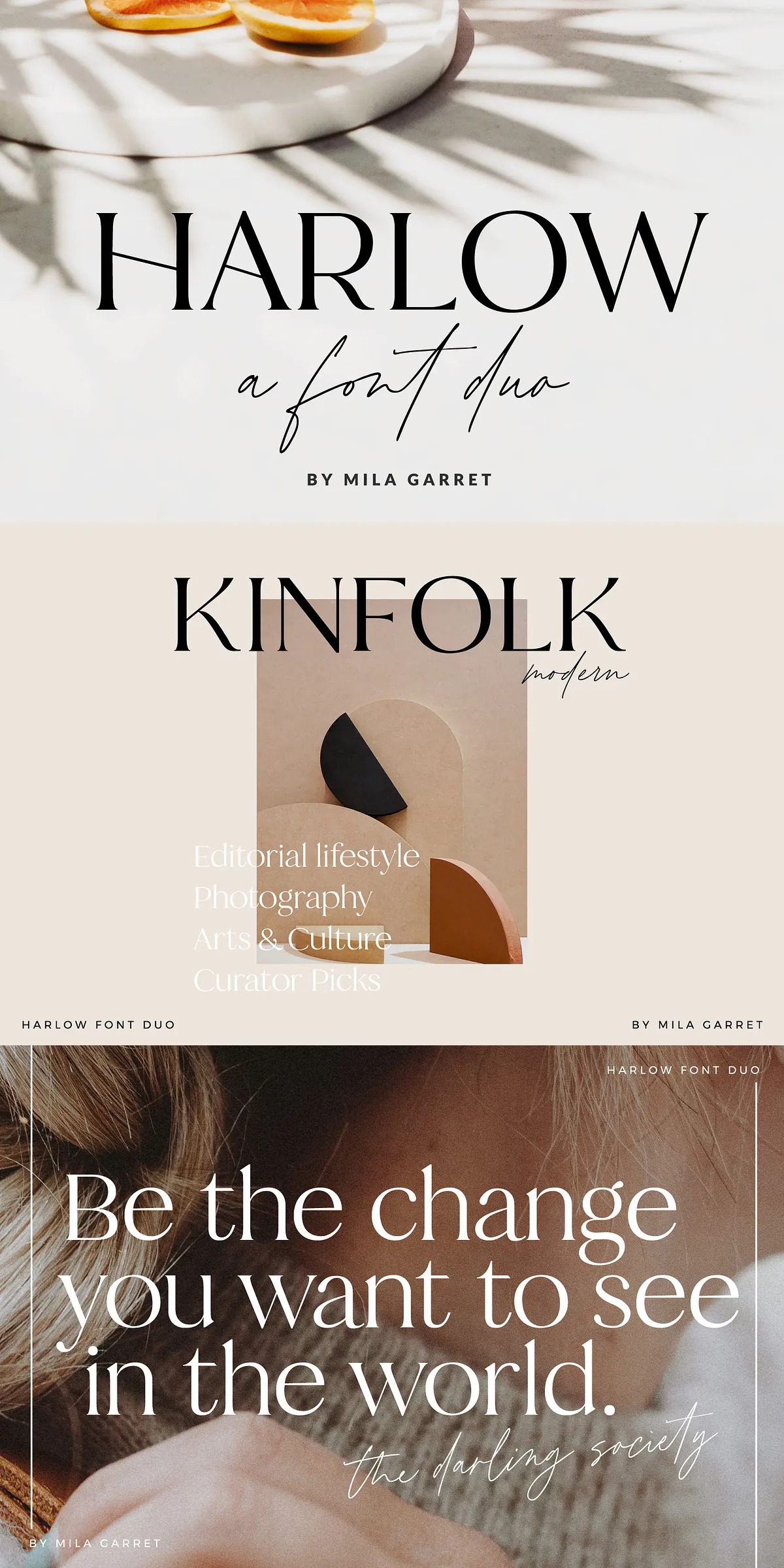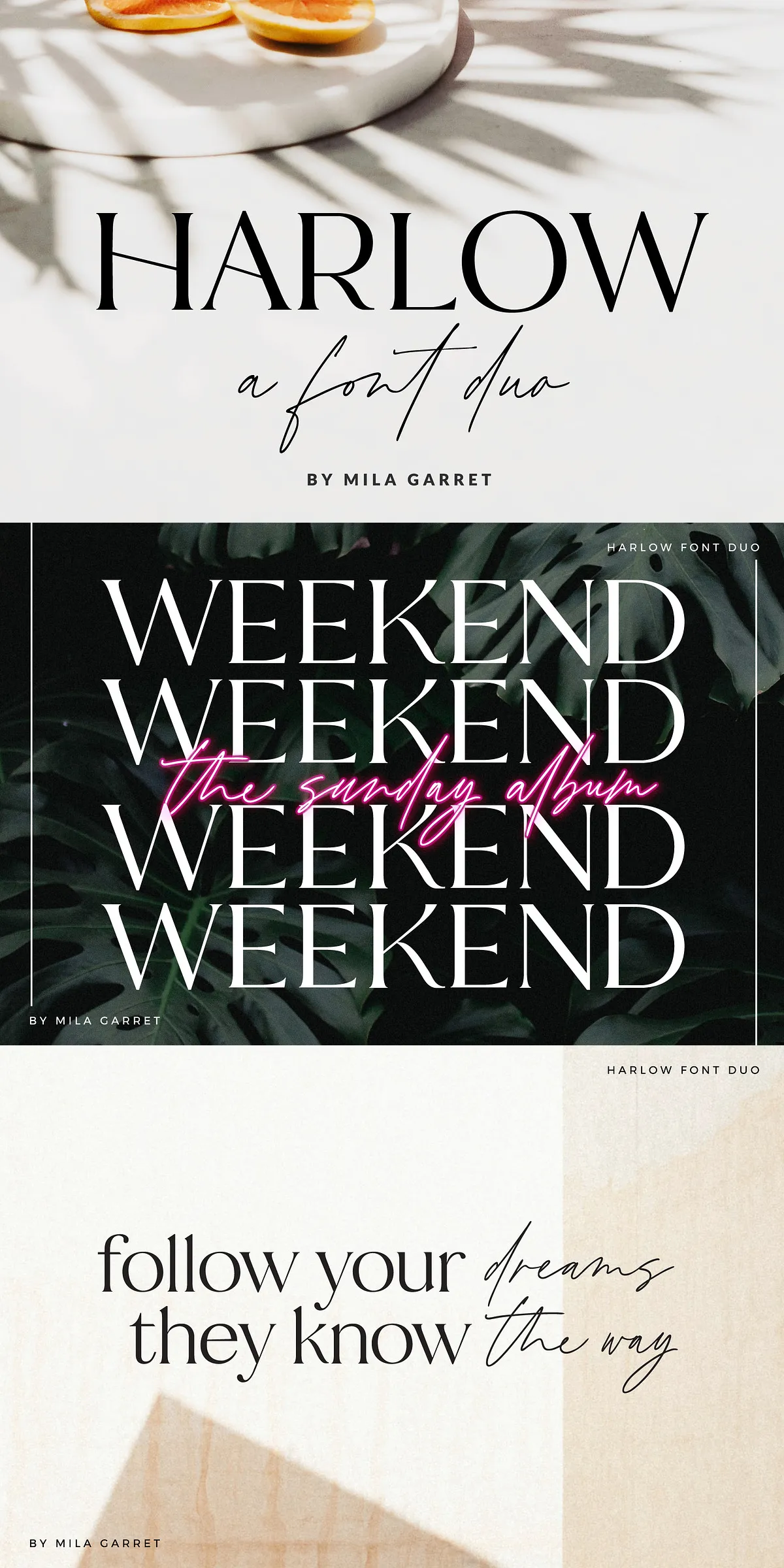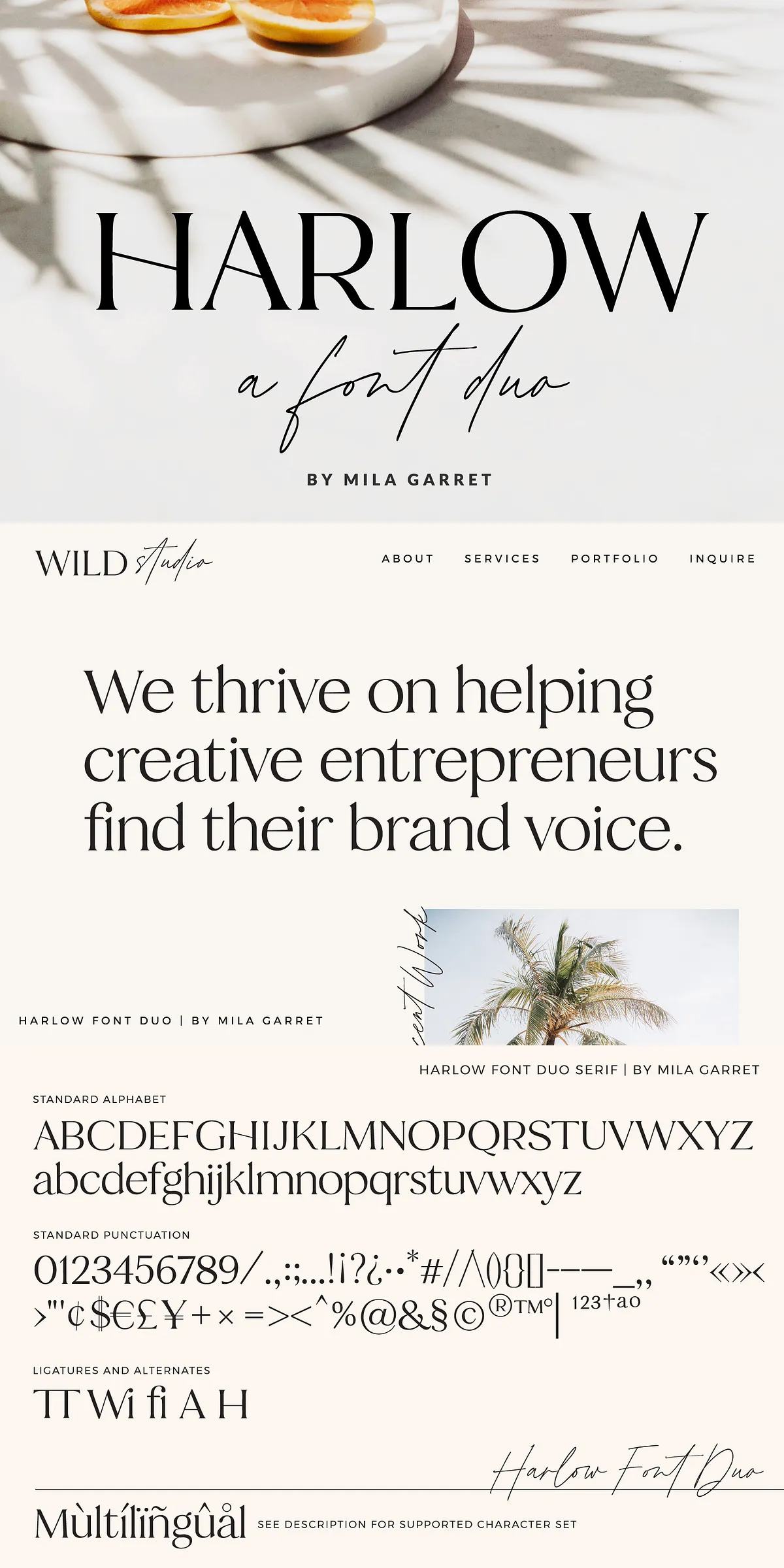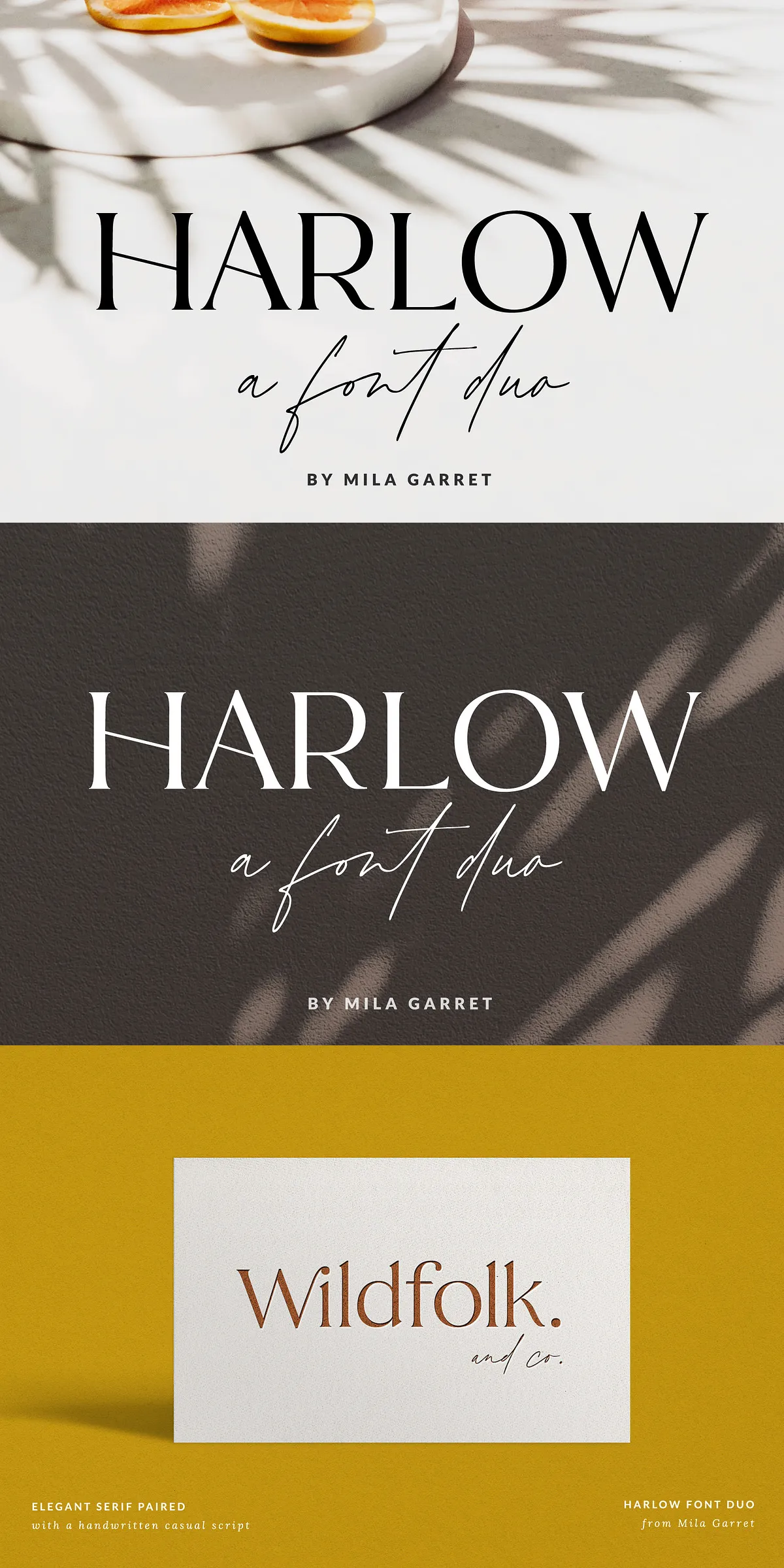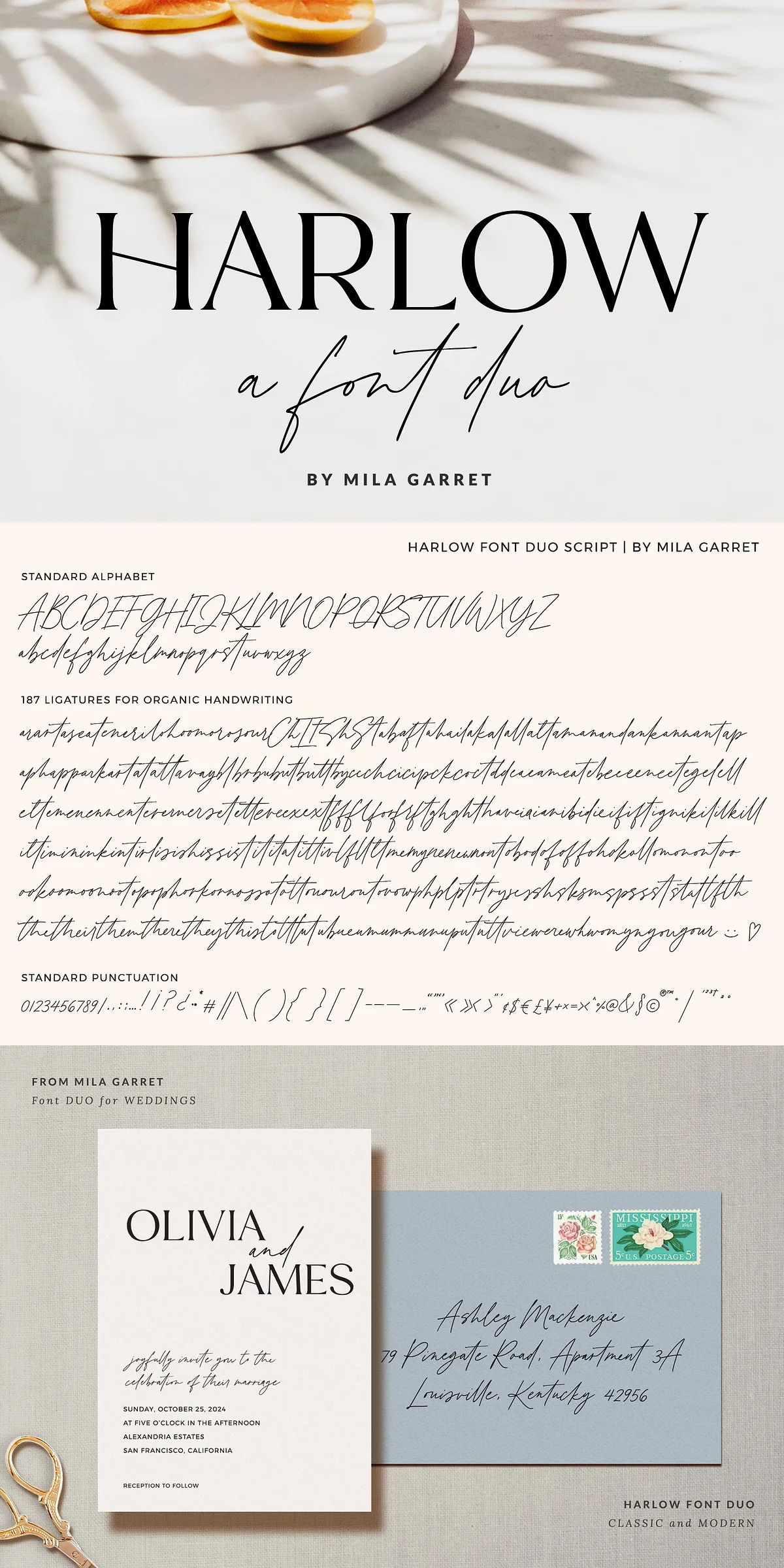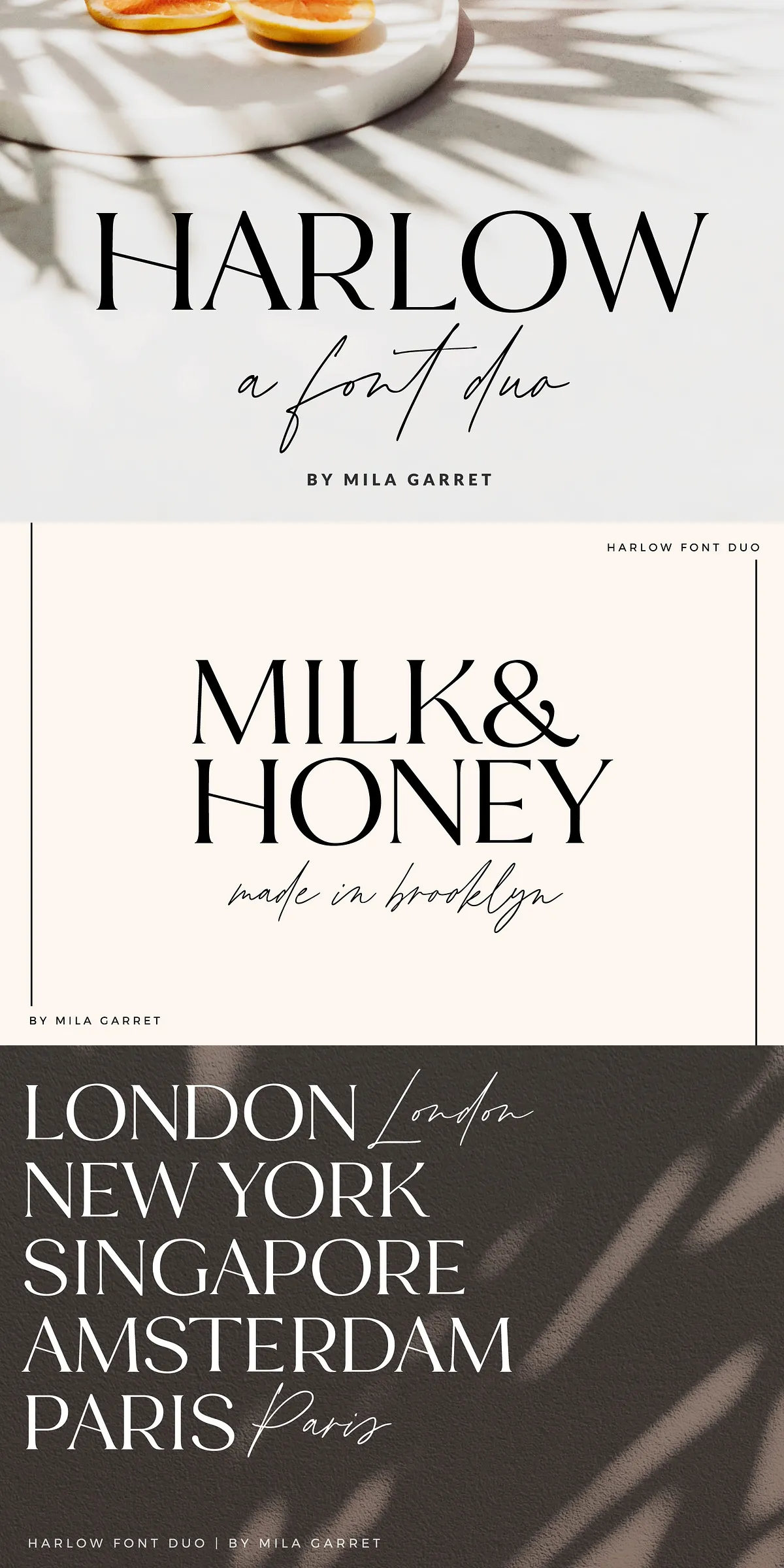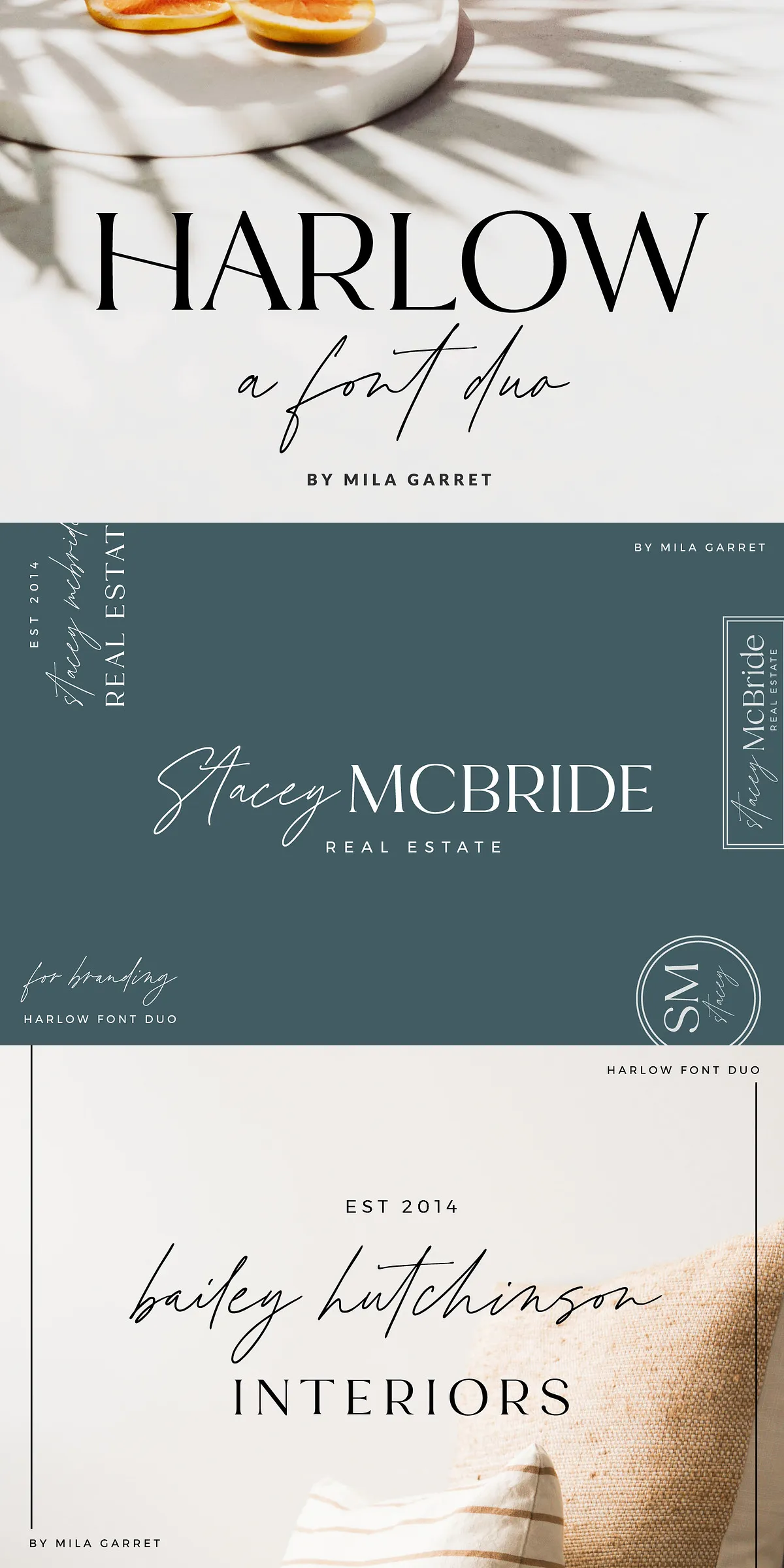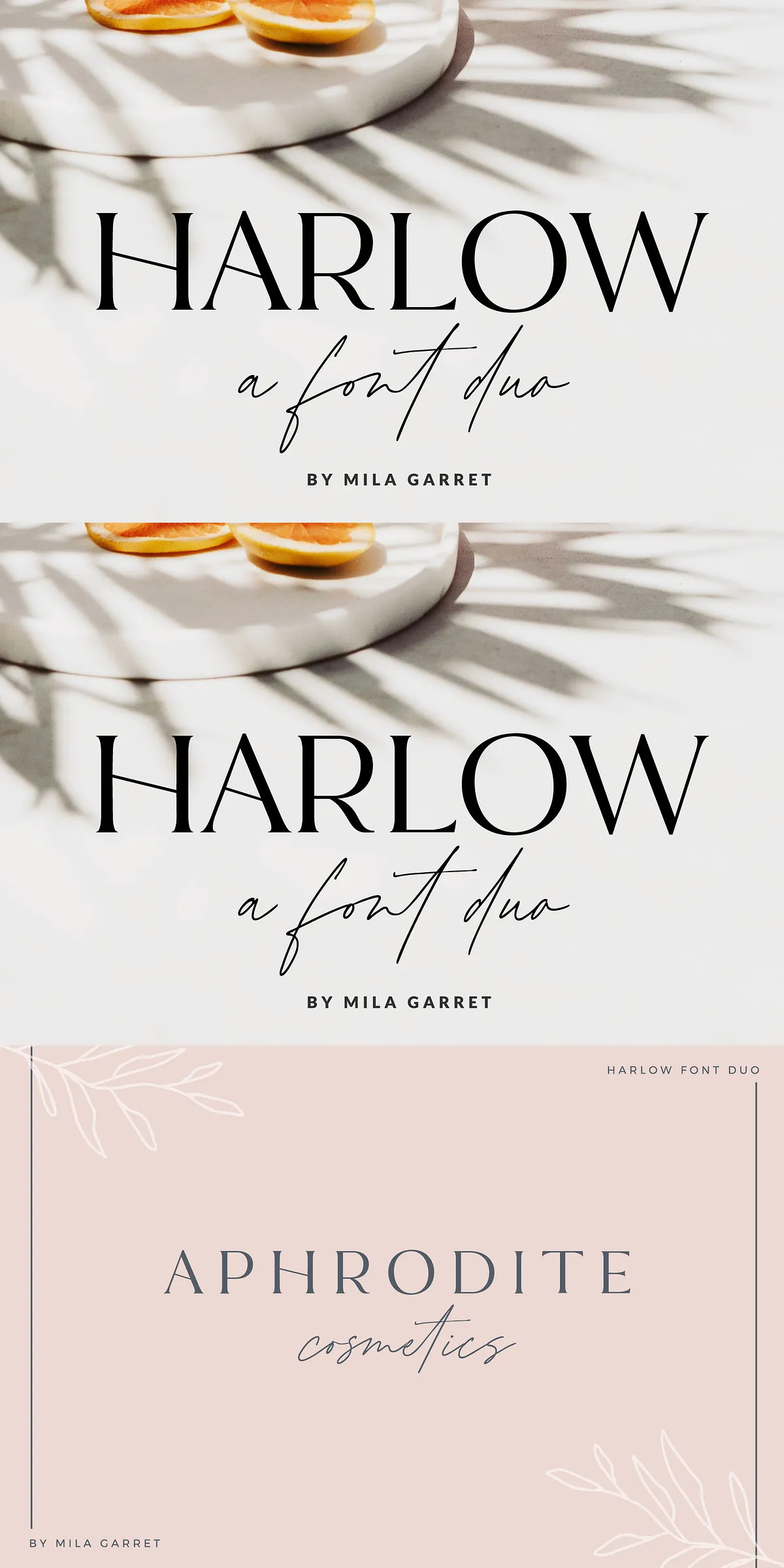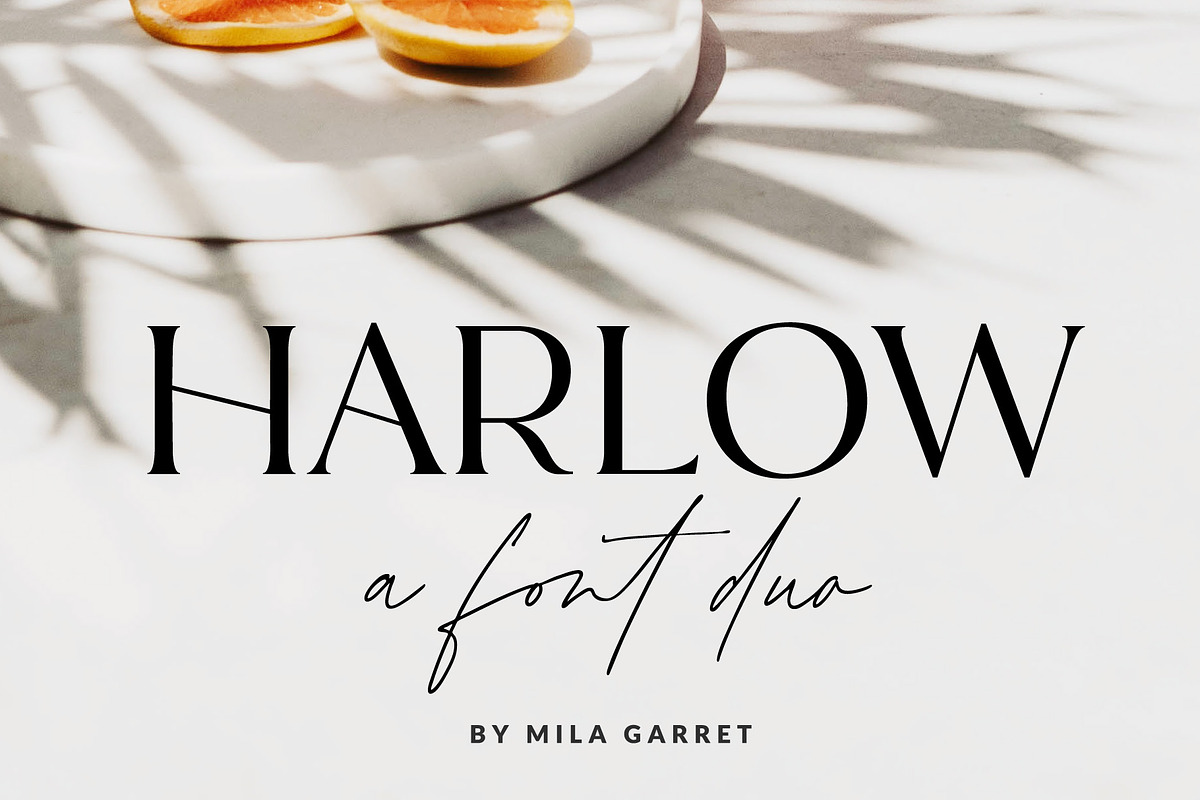
Harlow Font Duo is a sophisticated typeface pairing that combines the timeless elegance of a serif font with the relaxed charm of a handwritten script. This dynamic duo offers a modern and minimal aesthetic that elevates any design project, making it an excellent choice for websites, branding identities, logos, social media graphics, wedding stationery, and much more. Its versatility and refined style empower designers to create luxurious and clean visuals that resonate with contemporary audiences.
Distinctive Features of Harlow Font Duo
The Harlow Font Duo consists of two complementary fonts: Harlow Serif and Harlow Script. Each brings unique characteristics that, when combined, produce a harmonious and visually appealing typography system.
Harlow Serif: Quirky Elegance
Harlow Serif stands out with its elegant letterforms and distinctive quirks, such as the playful capital “A” and “H.” These unique characters add personality and flair to your text, while standard alternate versions are also available for a more traditional look. This flexibility allows you to tailor the font to suit the tone and style of your project, whether you want to emphasize sophistication or inject a bit of whimsy.
Harlow Script: Custom Handwritten Style
Complementing the serif, Harlow Script offers a casual, handwritten feel with an impressive set of 187 ligatures. These ligatures enable smooth, natural connections between letters, creating a fluid and authentic handwritten appearance. This feature is especially valuable for designers seeking to add a personal touch to their work, whether in social media quotes, invitations, or branding materials.
Applications and Use Cases
Harlow Font Duo’s modern and minimal design makes it highly adaptable across various creative fields. It works beautifully for:
- Website Design: Enhance your site’s typography with a clean, elegant look that improves readability and visual appeal.
- Branding and Logos: Create memorable brand identities that balance professionalism with approachability.
- Social Media Graphics: Craft eye-catching quotes and posts that stand out in crowded feeds.
- Wedding Stationery: Design invitations, save-the-dates, and other wedding materials with a luxurious yet personal touch.
- Print and Editorial: Use the font duo to add sophistication and style to magazines, brochures, and posters.
Why Choose Harlow Font Duo?
Harlow Font Duo offers a unique blend of elegance and casual charm that few typefaces can match. Its carefully crafted serif and script fonts provide designers with the tools to create versatile, stylish, and engaging typography. The availability of alternate characters and extensive ligatures further enhances creative possibilities, allowing for customized and polished results.